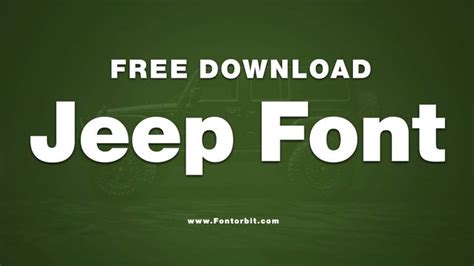
What Font Does Jeep Use. Helvetica or neue haas grotesk is a. Web font and legibility:
Have you ever wondered what the jeep wrangler font is?. Web font and legibility: Web #1 · may 22, 2006. The closest font you can get for the jeep. logo is this font. What is the jeep wrangler font? I'm looking for a font that closely resembles what's used in current jeep logos ( like this one ). Web the jeep logotype lettering is very similar to a font called helvetica bold and the font is a commercial one. Helvetica or neue haas grotesk is a.
The closest font you can get for the jeep. Have you ever wondered what the jeep wrangler font is?. logo is this font. Web the jeep logotype lettering is very similar to a font called helvetica bold and the font is a commercial one. Web font and legibility: The closest font you can get for the jeep. I'm looking for a font that closely resembles what's used in current jeep logos ( like this one ). What is the jeep wrangler font? Web #1 · may 22, 2006. Helvetica or neue haas grotesk is a.